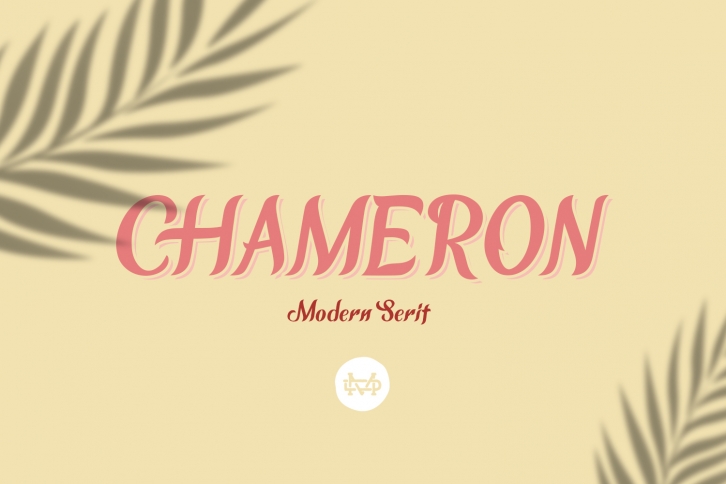
CHAMERON is a great font that was designed by madeDeduk. Imagine the amount of combinations you can create using this font! The archive is 3.88 MB and it was released on June 23, 2019. CHAMERON looks beautiful on wedding invitations, greeting cards, logos, posters, labels, t-shirt designs, logos, business cards and is perfect for use in ink or watercolor works, fashion, magazines, packaging and food menus, children's books and more!